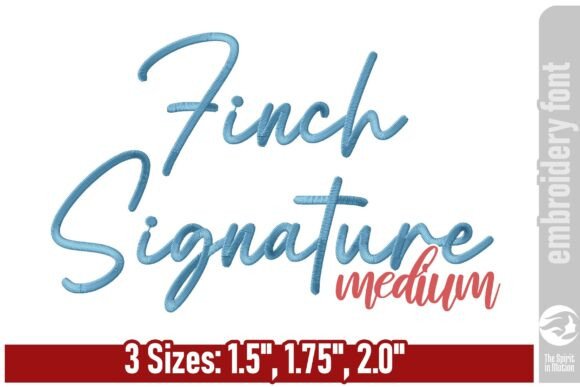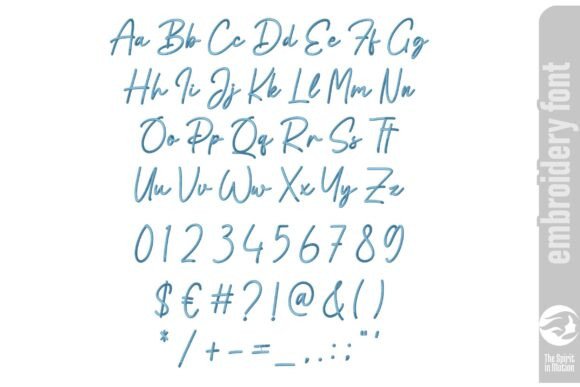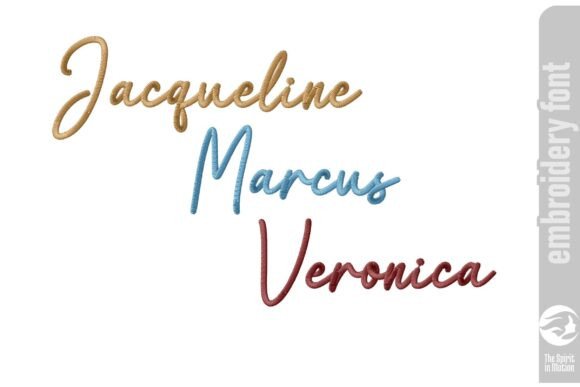
Finch Signature Embroidery Font – M
Finch Signature is a stylish and modern signature embroidery font that brings a handwritten elegance to your designs. With smooth curves and a natural flow, it’s perfect for adding a personal touch to names, quotes, branding, and gifts.
This set includes uppercase and lowercase letters, numerals, and basic punctuation symbols—giving you the flexibility to create complete words and custom text layouts with ease. Whether you’re working on clothing, accessories, or keepsakes, Finch adds a refined, contemporary look to any project.